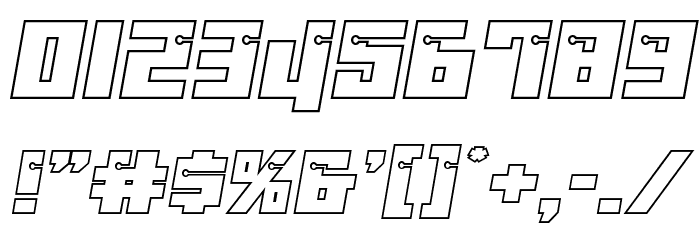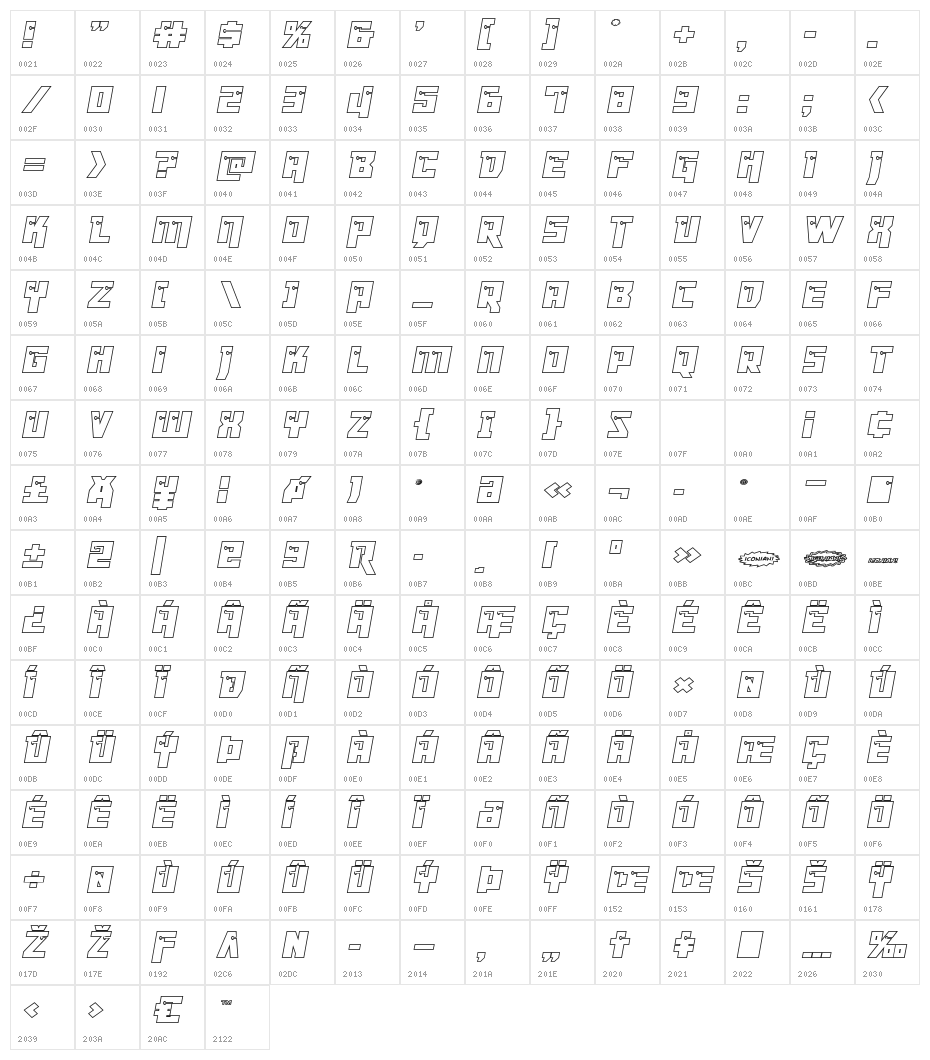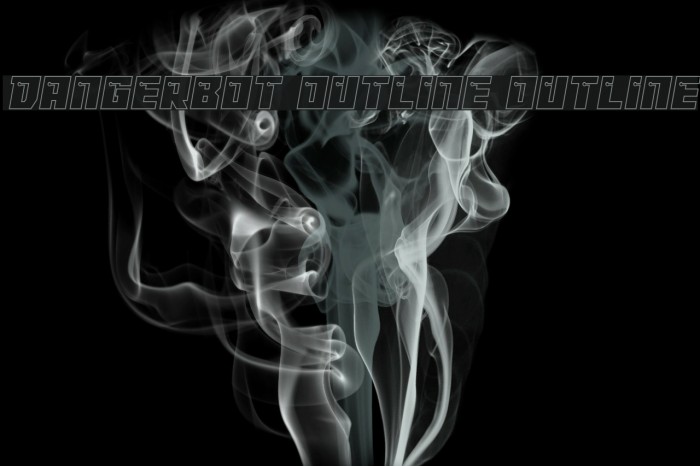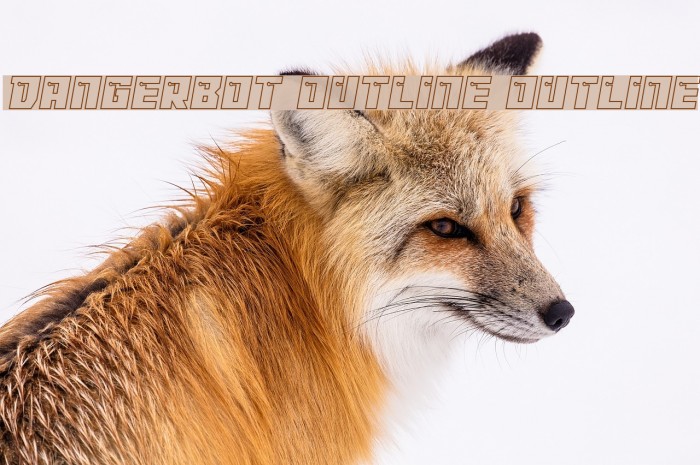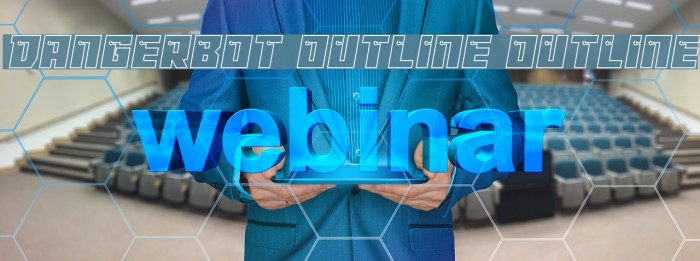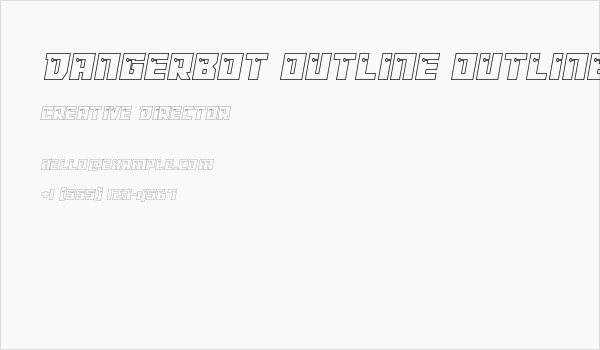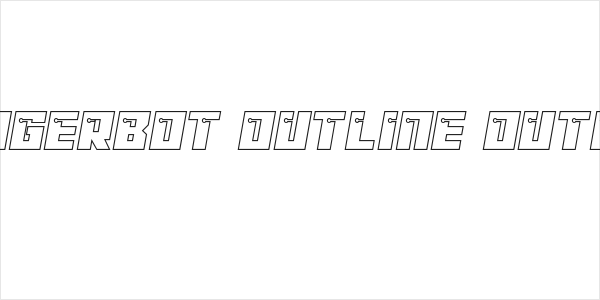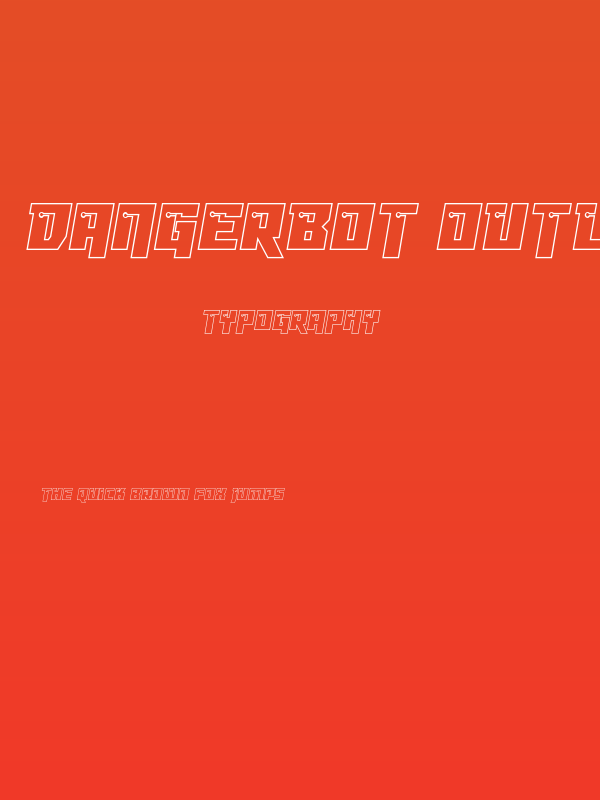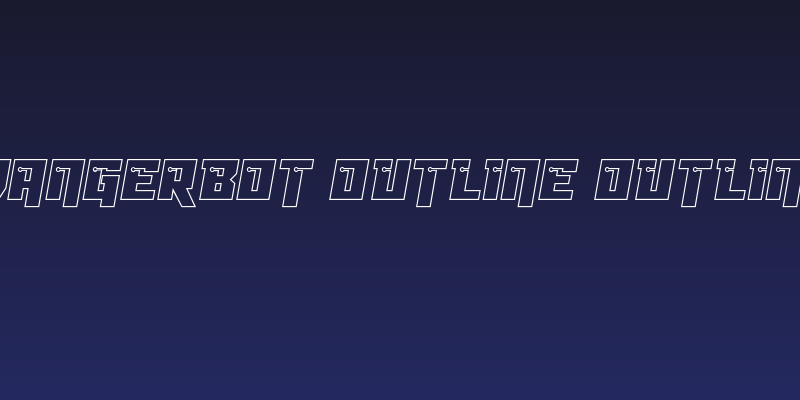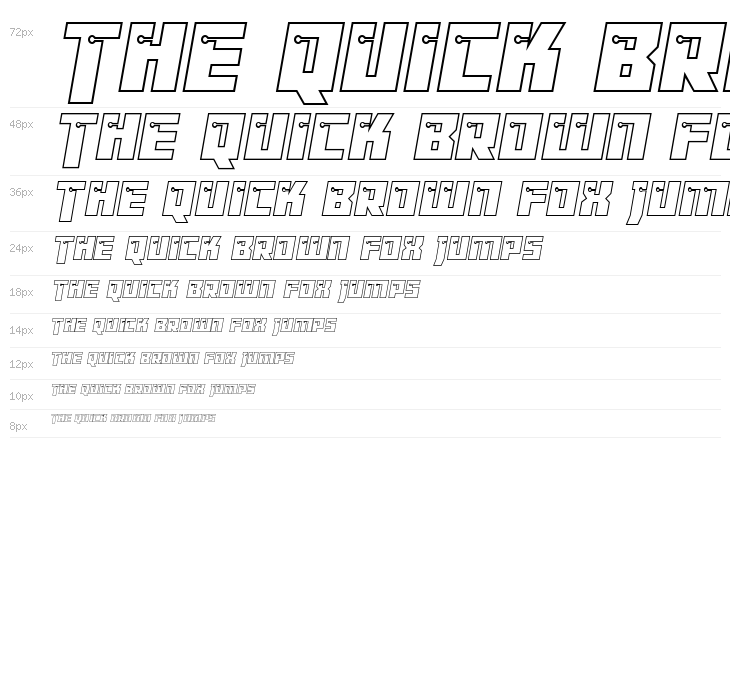
Dangerbot Outline Font
Dangerbot Outline Description
This font features a bold, geometric outline style with a futuristic and robotic aesthetic. The characters are constructed with sharp angles and straight lines, giving them a mechanical and structured appearance. The outline design adds a sense of depth and dimension, making each letter stand out distinctly. The uppercase and lowercase letters maintain a consistent style, while the numerals and special characters complement the overall design. This font is ideal for projects that require a modern and edgy look, such as technology-themed graphics, video game titles, or sci-fi movie posters.
| Overall Style | Futuristic, Modern |
| Proposed Projects | Ideal for technology-themed graphics, video game titles, sci-fi movie posters, and modern branding. |